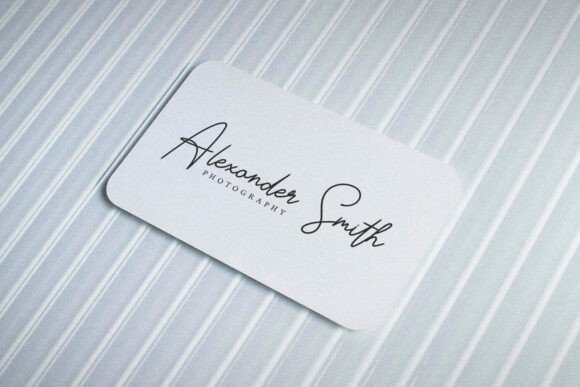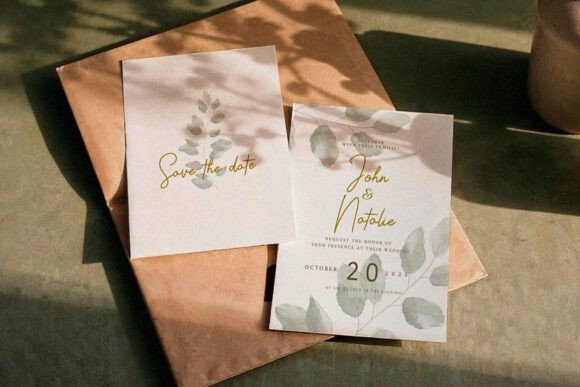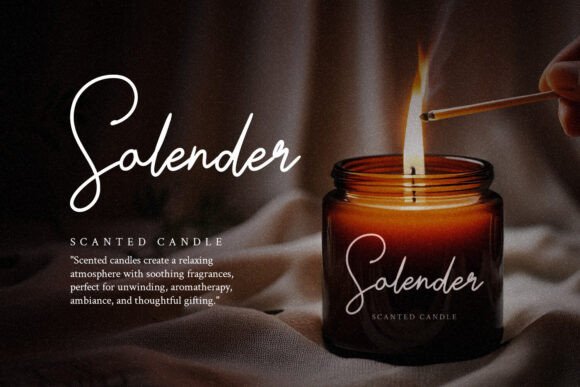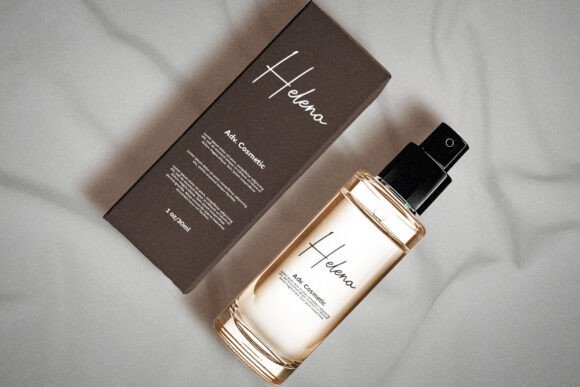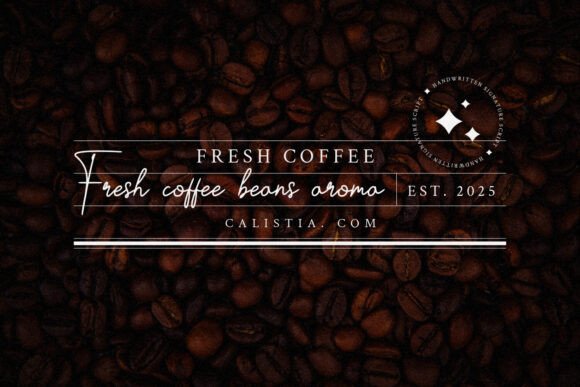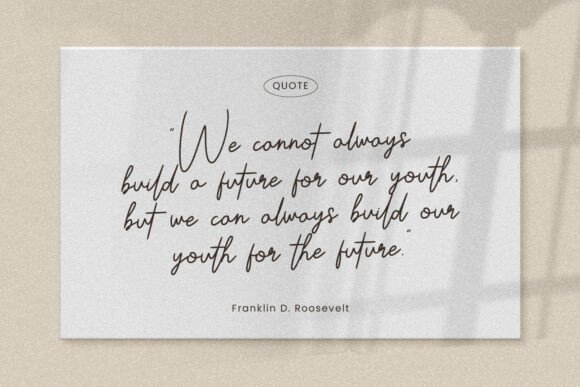
The Elusive Perfect Font: My Encounter with Calistia
I’ll never forget the struggle I faced while working on a wedding invitation project. My client wanted a font that exuded elegance, sophistication, and a touch of whimsy. I scoured the internet, tried countless fonts, but nothing seemed to fit the bill. That was until I stumbled upon Calistia, a premium script handwritten font that has since become a staple in my design toolkit.
What Makes Calistia Special?
Calistia is inspired by the elegance of natural signature-style lettering, with smooth curves, flowing strokes, and a realistic hand-drawn feel. This font is perfect for a wide range of creative projects, including branding, logo design, wedding invitations, business cards, and luxury packaging.
An Honest Review of Calistia
• ✨ Elegant and sophisticated feel
• ✅ Smooth curves and flowing strokes
• 💫 Realistic hand-drawn feel
• 🎨 Highly versatile and adaptable
• 🤔 May not be suitable for very small font sizes due to intricate details
• ⚠️ Limited availability of certain characters or glyphs
The Designer Inspiration Behind Calistia
Calistia was designed with the intention of capturing the essence of natural signature-style lettering. The designer aimed to create a font that exudes elegance, sophistication, and charm, while maintaining a realistic hand-drawn feel.
What type of projects is Calistia suitable for? Calistia is perfect for a wide range of creative projects, including branding, logo design, wedding invitations, business cards, and luxury packaging.
Does Calistia support OpenType features? Yes, Calistia supports OpenType features, including stylistic alternates, glyphs, and ligatures.